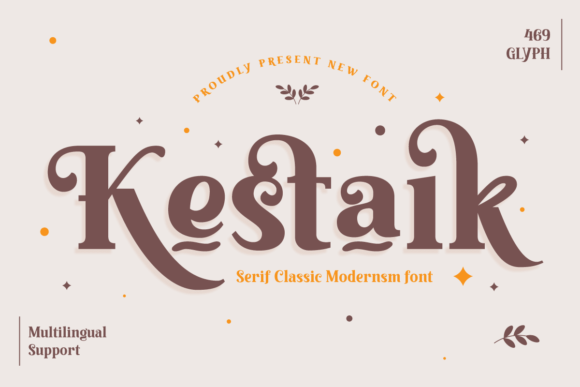
Looking for a modern logo that stands out? Look no further than Kestaik Font! This classic serif font, created by Productype, exudes charm and refinement, making it the perfect choice for any project that requires a touch of old-world elegance. With its timeless design and eye-catching serifs, Kestaik is sure to elevate your brand and leave a lasting impression on your audience.
One of the standout features of Kestaik Font is its versatility. Whether you're designing a logo, a website, or a print ad, Kestaik has you covered. Its clean lines and simple yet elegant design make it a great choice for a wide range of applications, from branding to editorial design.
But that's not all - Kestaik Font is also PUA encoded, which means you can access all glyphs and swashes effortlessly. This allows you to create truly unique designs with ease, giving your brand the edge it needs to stand out from the competition.